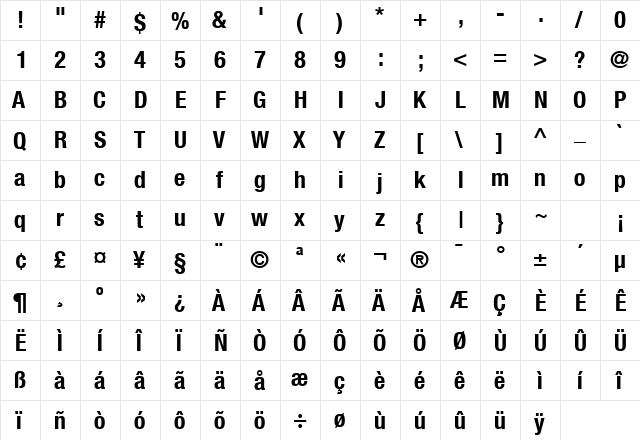
HeaveneticaCond7 BoldSH Font Preview
HeaveneticaCond7 BoldSH
Design Context for HeaveneticaCond7 Typeface
HeaveneticaCond7 takes a measured approach to typography — its balanced proportions and neutral character make it a reliable workhorse for both digital and print work. Its bold stroke weight gives it real presence on the page. The condensed width makes it efficient for tight spaces without sacrificing legibility.